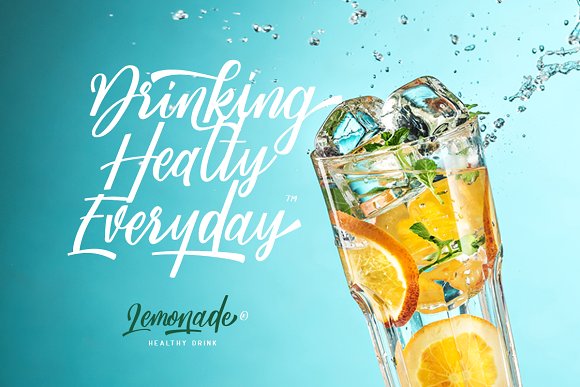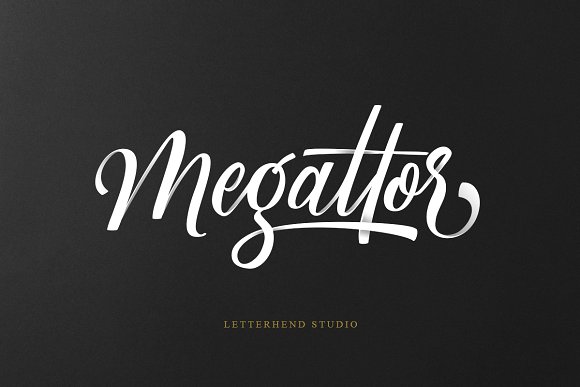
Megattor Script
Megattor Script Font
Introducing, Megattor typeface. This font is beautifully made with a natural hand writing. As you can see the flow of the bold and thin lines creates a perfect hand lettering just by typing on your keyboard! It has many open type features like ligatures, stylistic alternate, and lots of Stylistic Set, also support multilanguage. This typeface is based on manual handwriting which is very suitable for any design needs you have especially for script logotype project